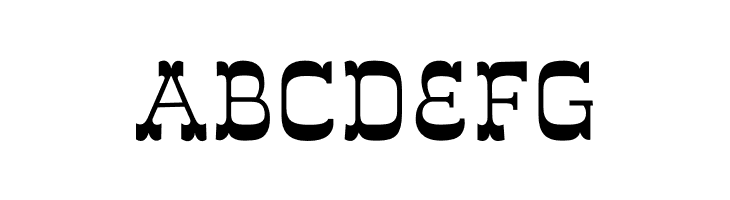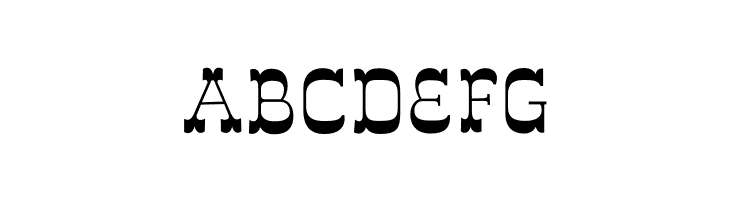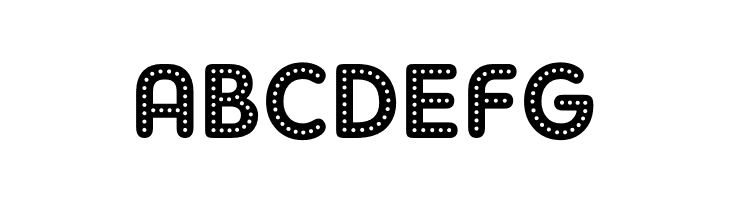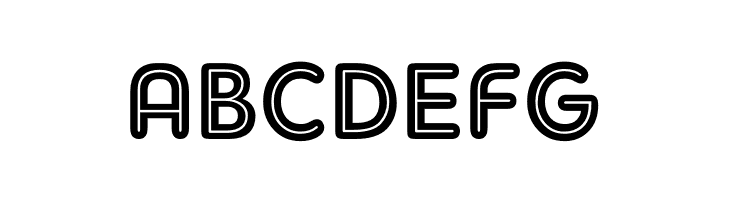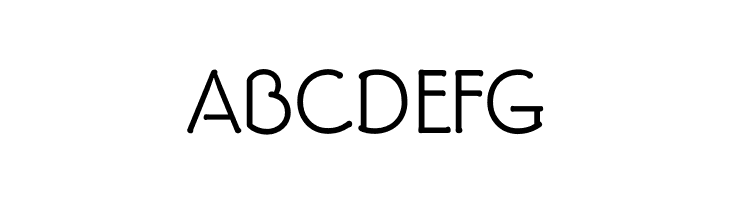
( Fonts by Sentinel Type - James Arboghast )
A bold slab serif font with a vintage yet modern appeal.
( Fonts by Sentinel Type - James Arboghast )
A bold slab serif font with a vintage Western style.
( Fonts by Sentinel Type - James Arboghast )
A playful, dotted outline font with bold, rounded characters.
( Fonts by Sentinel Type - James Arboghast )
A modern, inline font with geometric shapes and smooth curves.
( Fonts by Sentinel Type - James Arboghast )
A modern, geometric font with subtle curves and a playful touch.
( Fonts by Sentinel Type - James Arboghast )
A modern, italicized font with clean lines and a geometric structure.
( Fonts by Sentinel Type - James Arboghast )
A bold, geometric stencil font with a modern, industrial feel.
( Fonts by Sentinel Type - James Arboghast )
A modern, geometric font with clean lines and a slightly condensed style.
( Fonts by Sentinel Type - James Arboghast )
A bold, geometric font with clean lines and a modern aesthetic.